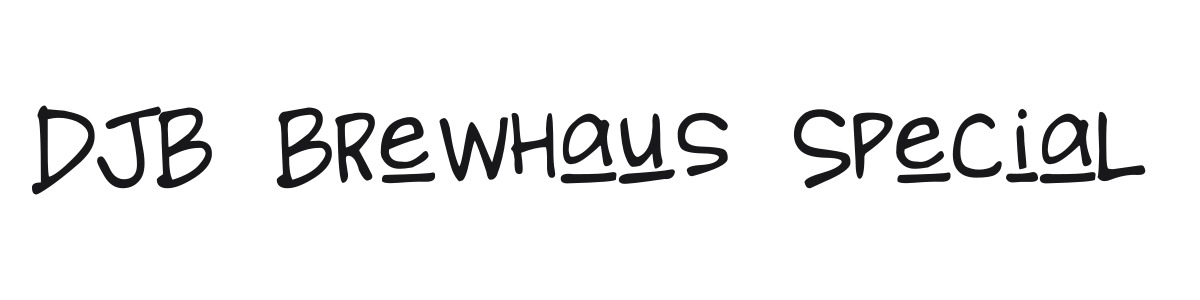
DJB Brewhaus Special
DJB Brewhaus Special is a bold, marker-style handwritten face from DJB Fonts with thick strokes and a loose, slightly quirky rhythm to the letterforms. It feels like someone grabbed a chisel-tip marker and wrote with confidence and personality, each letter carrying just enough irregularity to stay interesting. Best for headlines, signage, and informal branding where you want something that reads as genuinely hand-lettered and approachable.